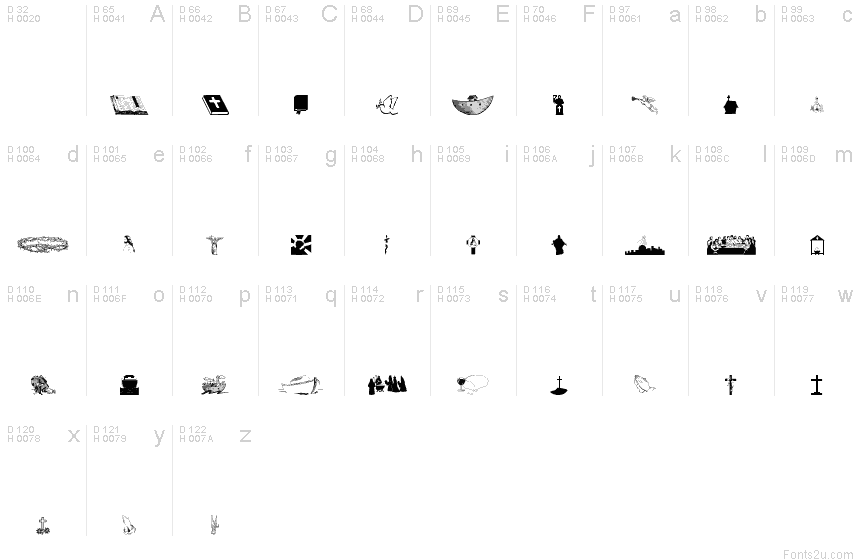
WM Religious 1 is a free Christian dingbat font built from solid pictorial symbols. Its figures range from simple church objects to detailed biblical scenes, mixing compact silhouettes with crisp line drawing.
Crosses, sacred furnishings, worshippers, and narrative tableaux let the symbols function as ready-made illustration in church bulletins and event programs. They also suit faith-based posters and historical publishing. The collection is aimed most clearly at congregations, religious educators, and designers preparing Christian material.